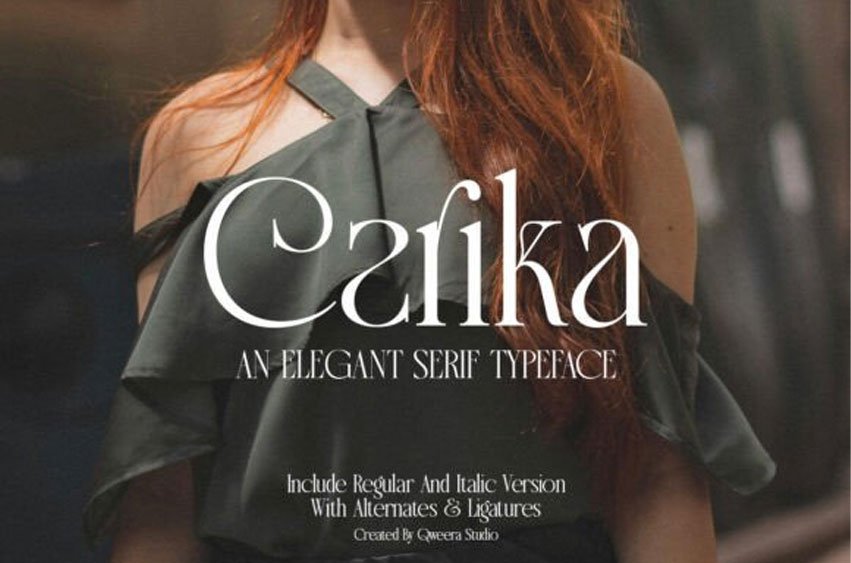
Carika Font is more than just a font—it’s a symbol of sophistication and refinement, designed to add a touch of luxury to your creative projects.
With its regular and italic versions, Carika combines classic elegance with modern style, making it the perfect choice for branding, editorial design, and other projects that demand a classy and elegant typographic solution.